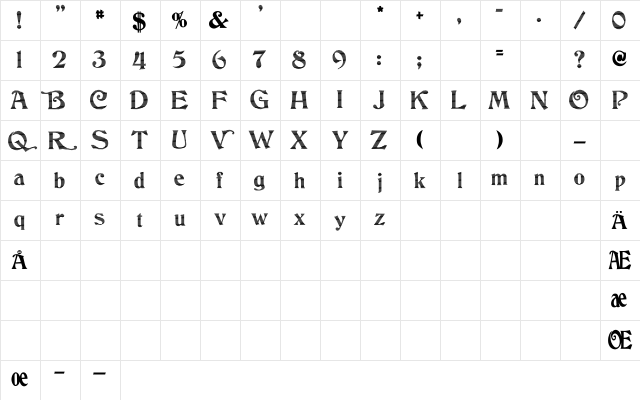
Complete Faxburn Medium glyph index. Displaying only characters natively supported by Faxburn Medium font.
Faxburn is a composed and adaptable typeface that performs quietly and consistently across a wide range of design contexts.